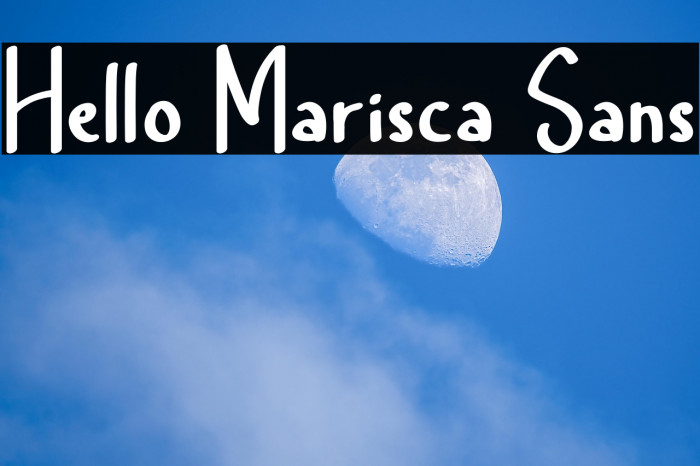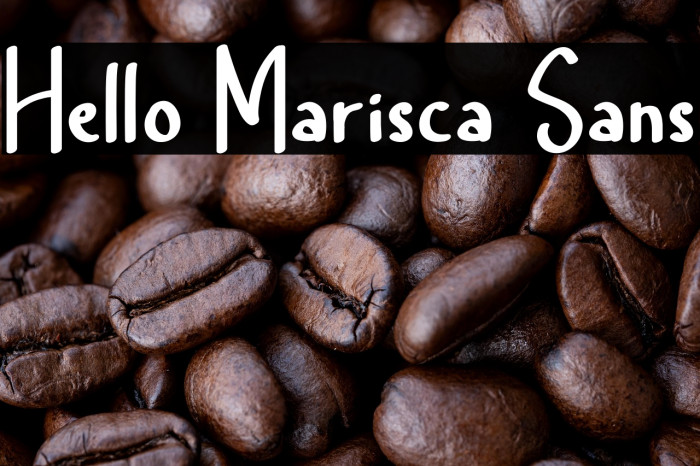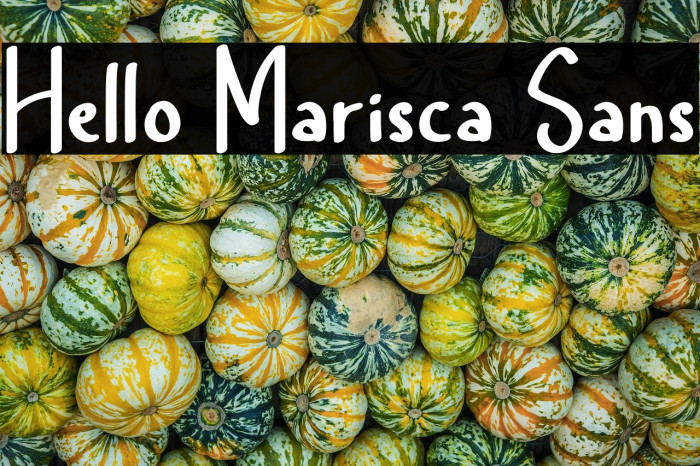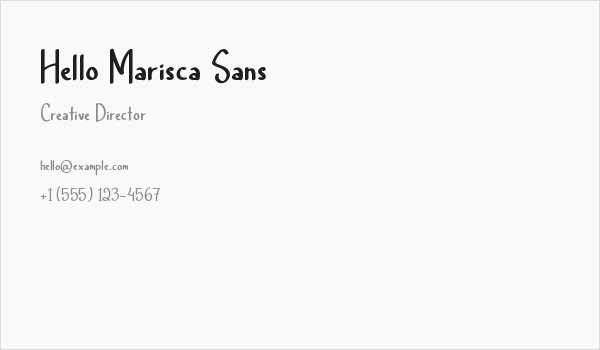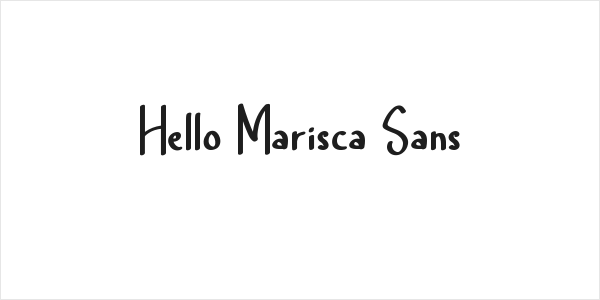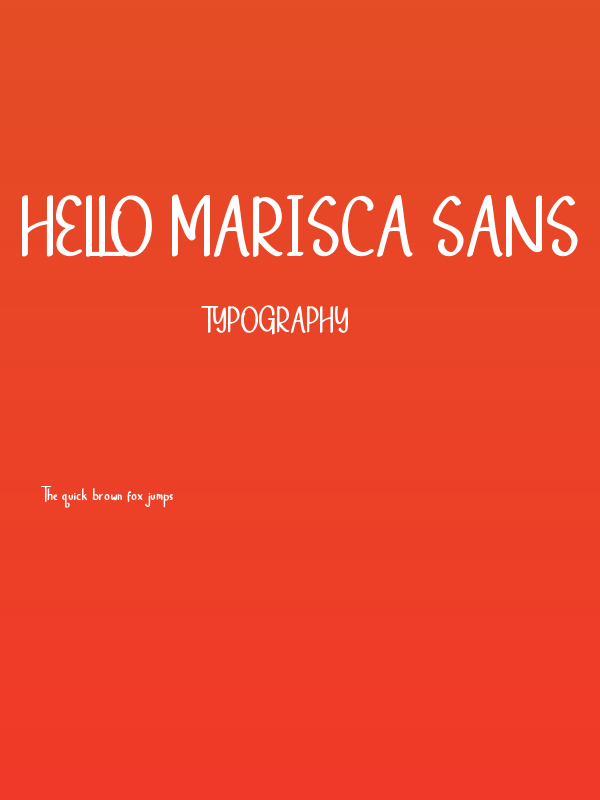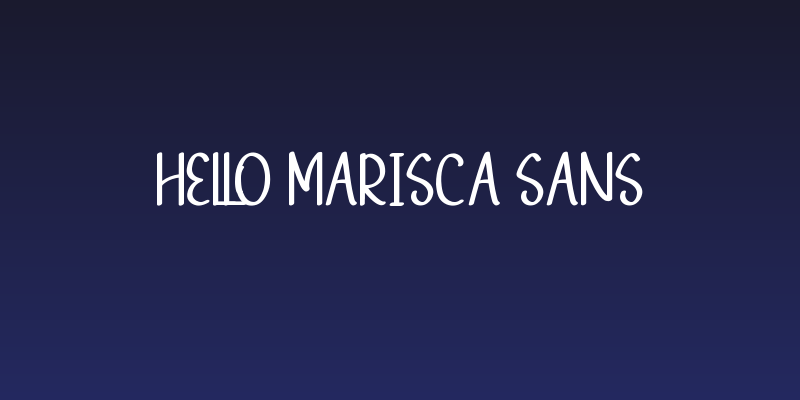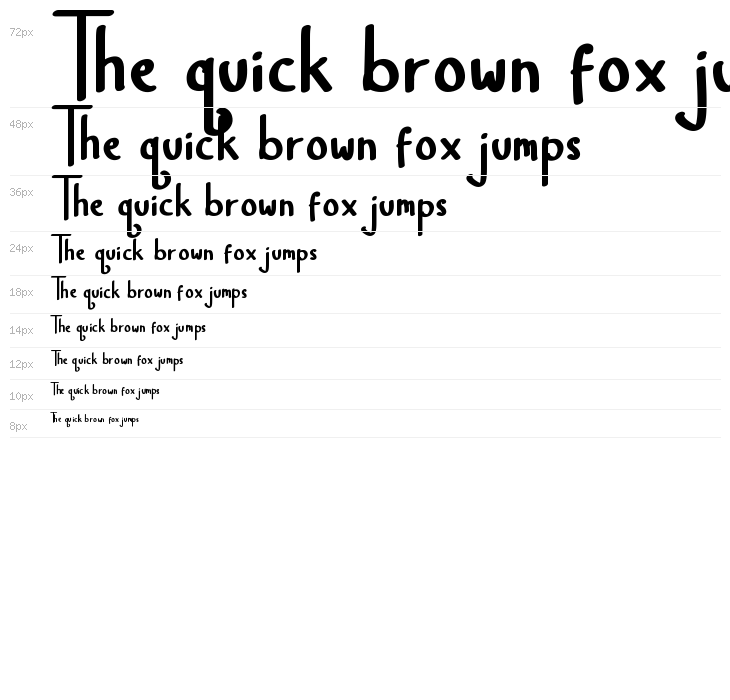
Hello Marisca Sans Font
Hello Marisca Sans Description
This font features a playful and casual style with a handwritten appearance. The letters are slightly irregular, adding a whimsical and friendly touch. The uppercase characters are tall and narrow, while the lowercase letters maintain a consistent flow with rounded edges. Numbers and special characters follow the same playful design, making them easily recognizable. The overall look is approachable and informal, suitable for projects that require a personal or creative touch.
| Proposed Projects | Ideal for greeting cards, children's books, playful branding, and casual invitations. |